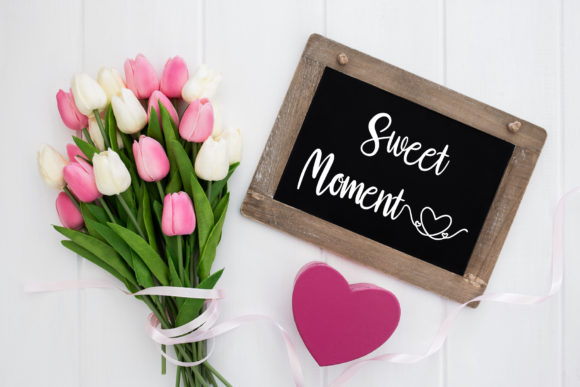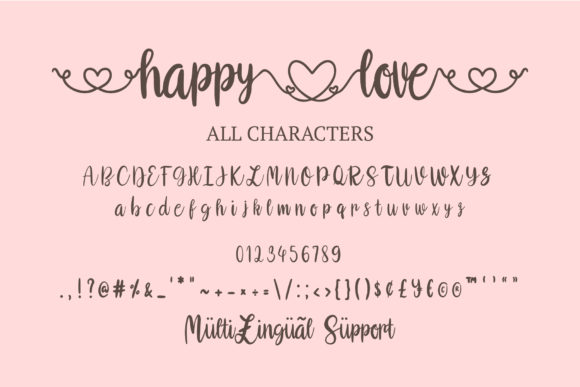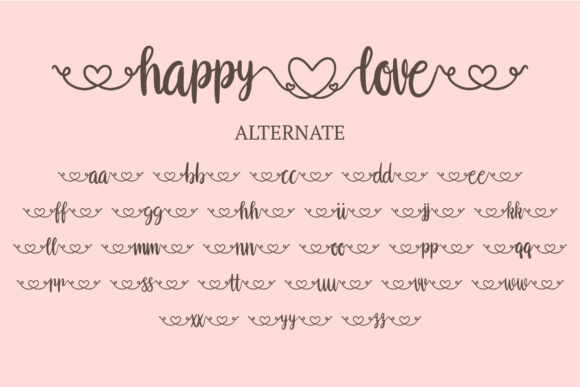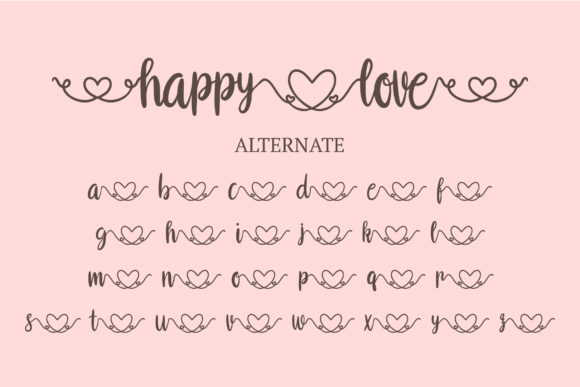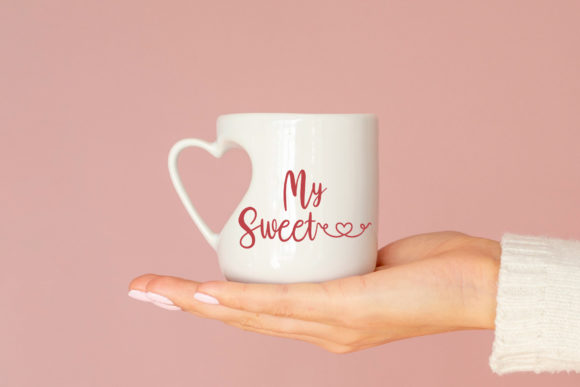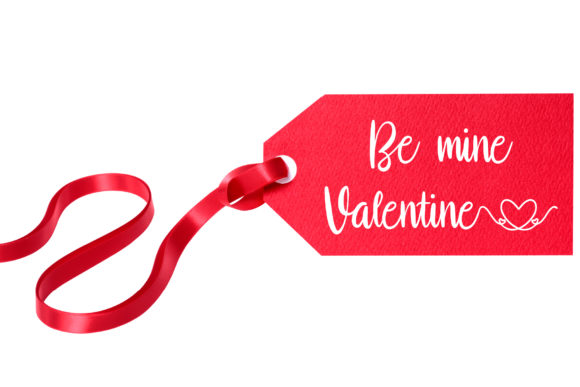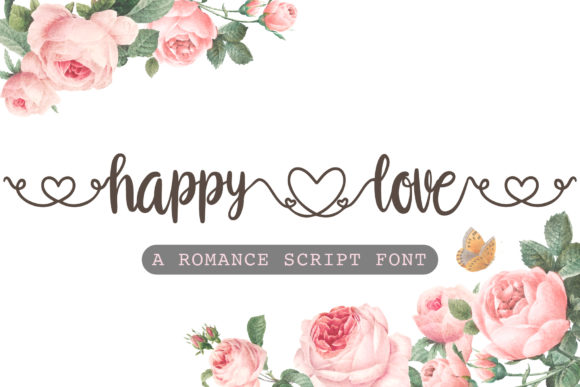
Introducing Happy Love Font: The Perfect Choice for Modern Elegance
Are you a designer, crafter, or DIY enthusiast looking for a beautiful and elegant font to elevate your creative projects? Look no further than Happy Love Font, a stunning handwritten font that exudes modern sophistication. In this article, we’ll dive into the features and benefits of Happy Love Font, and explore how it can be used to take your designs to the next level.
What is Happy Love Font?
Happy Love Font is a carefully crafted handwritten font that boasts a modern and elegant feel. Its unique and flowing script is perfect for creating beautiful designs that capture the essence of love, joy, and celebration. Whether you’re designing a logo, branding materials, invitations, cards, or social media posts, Happy Love Font is the perfect choice.
Key Features of Happy Love Font
- Modern and Elegant Feel: Happy Love Font has a fresh and contemporary look that will make your designs stand out from the crowd.
- Handwritten Script: The font’s handwritten script gives it a personal and unique touch, perfect for creating bespoke designs.
- PUA Encoded: Happy Love Font is PUA (Private Use Area) encoded, which means you can easily access all the glyphs and swashes to add extra flair to your designs.
- Versatile: This font can be used for a wide range of projects, including logos, branding, invitations, cards, wedding cards, social media posts, and more.
Use Cases for Happy Love Font
Happy Love Font is an incredibly versatile font that can be used for various design projects. Here are some ideas to get you started:
- Wedding Invitations and Cards: Create beautiful and elegant wedding invitations, save-the-date cards, and thank-you cards with Happy Love Font.
- Logos and Branding: Use Happy Love Font to create a unique and memorable logo for your business or brand.
- Social Media Posts: Add a touch of elegance to your social media posts, including Instagram captions, Facebook posts, and Twitter updates.
- DIY Crafts: Happy Love Font is perfect for crafters who love to create handmade cards, gift tags, and other paper crafts.
Benefits of Using Happy Love Font
By choosing Happy Love Font, you’ll enjoy several benefits, including:
- Ease of Use: The font’s PUA encoding makes it easy to access all the glyphs and swashes, so you can focus on creating stunning designs.
- High-Quality Design: Happy Love Font is designed with high-quality and precision, ensuring that your designs look professional and polished.
In conclusion, Happy Love Font is an exceptional handwritten font that offers a modern and elegant feel, perfect for designers, crafters, and DIY enthusiasts. With its PUA encoding, versatility, and high-quality design, Happy Love Font is an excellent choice for a wide range of creative projects. Whether you’re designing a logo, invitation, or social media post, Happy Love Font is sure to elevate your designs and make them stand out from the crowd.